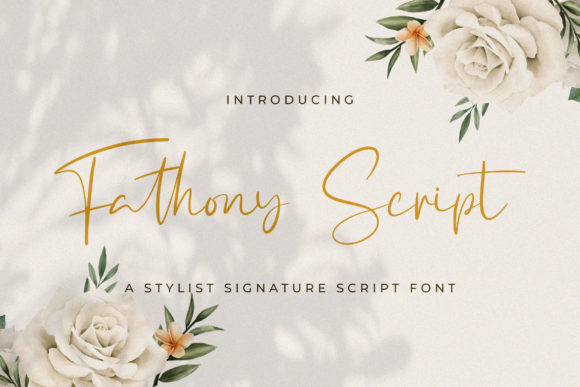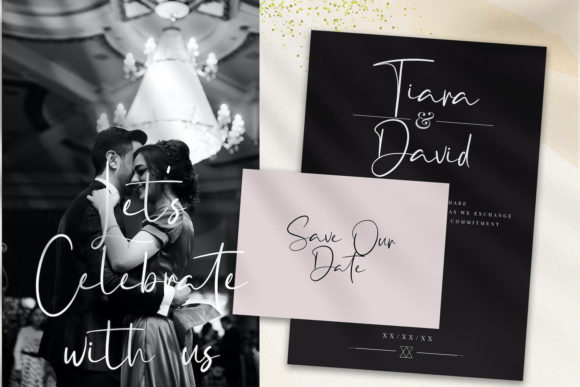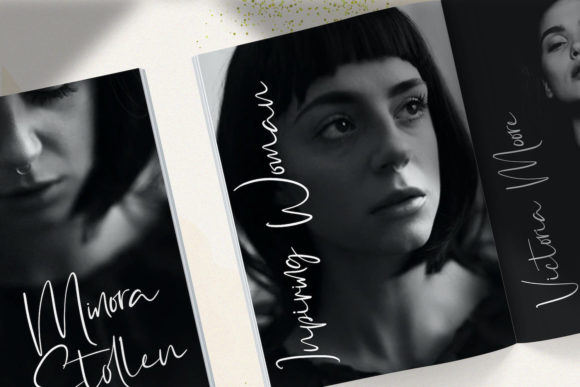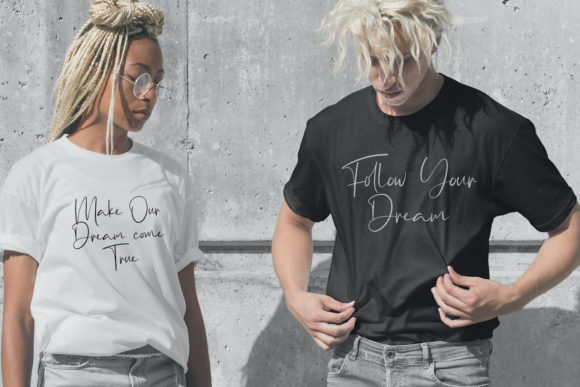
About Fathony Font
Fathony is a dainty, thin, and refined script font that exudes class, elegance, and a modern aesthetic. With its delicate and graceful letterforms, this font is perfect for a wide range of design projects.
The thin and refined nature of Fathony gives it a sense of sophistication and elegance, making it an excellent choice for logos and branding materials. Its delicate strokes and graceful curves create a harmonious and visually appealing logo or brand identity. Whether you’re designing for a high-end fashion brand, a luxury beauty product, or an upscale event, Fathony adds a touch of refinement and style.
Invitations and stationery also benefit from the beauty of Fathony. Whether you’re designing wedding invitations, event announcements, or personalized stationery, this font adds a touch of elegance and charm. Its modern look and refined script create a sense of sophistication and set the tone for your special occasion.
Social media posts and digital graphics can also be enhanced with the delicate and refined style of Fathony. It brings a sense of elegance and grace to your visuals, making your posts and content visually captivating. Use it for quotes, promotional graphics, or any other design element that needs a touch of sophistication and modernity.
Fathony’s thin and refined letterforms make it a versatile choice for a variety of design projects. From packaging and labels to editorial layouts and advertisements, this font ensures readability while adding a touch of elegance and modernity. Its timeless and sophisticated look makes it suitable for any project that requires a classy and refined touch.
In conclusion, Fathony is a dainty, thin, and refined script font that brings a sense of class, elegance, and modernity to your design projects. Its versatility makes it suitable for logos, branding, invitations, stationery, social media posts, and more. Embrace the delicate beauty of Fathony and elevate your designs to new levels of sophistication and style.